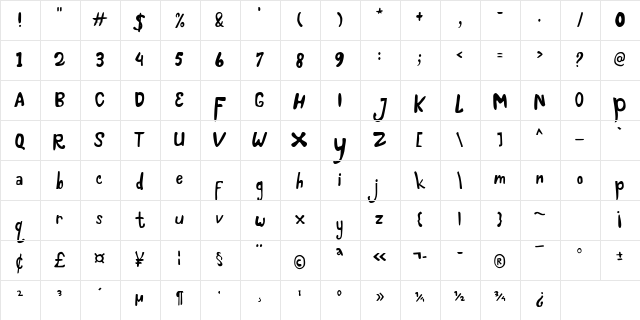
Dinosans Regular
Design Context for Dinosans Typeface
Dinosans is a composed and adaptable typeface that performs quietly and consistently across a wide range of design contexts.